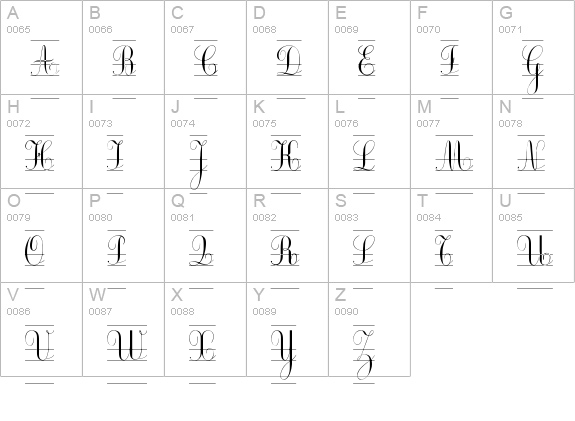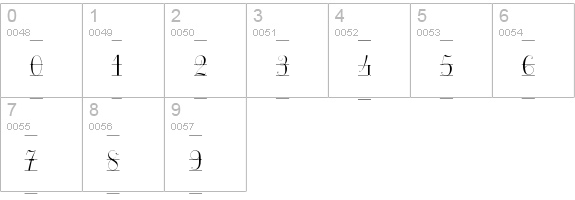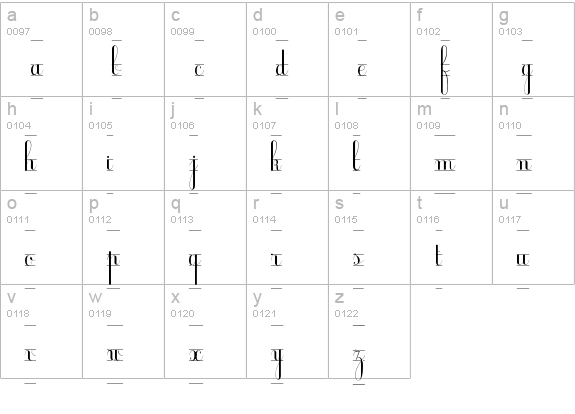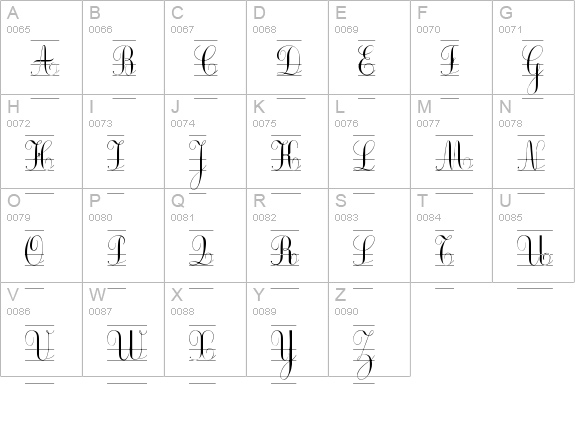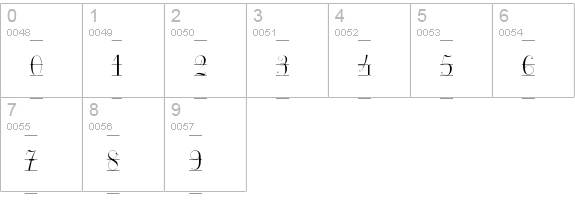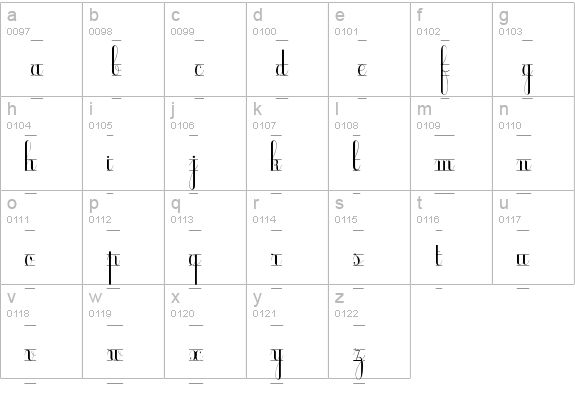
Ecolier_CP Font Details
Ecolier_CP is a charming and whimsical font that captures the essence of childhood innocence and playfulness. With its rounded edges and friendly letterforms, this font is perfect for creating a warm and inviting atmosphere in any design project. Ecolier_CP is not only visually appealing, but it is also incredibly versatile. Whether you are designing a children's book, a birthday card, or a playful poster, this font will add a touch of joy and creativity to your work. One of the best things about Ecolier_CP is that it is free. That's right, you can freely download this font at FontsMarket.com, making it accessible to designers and creatives of all backgrounds and budgets. So why wait? Bring a sense of childlike wonder and whimsy to your next project with Ecolier_CP. Download it for free today at FontsMarket.com and let your imagination run wild.